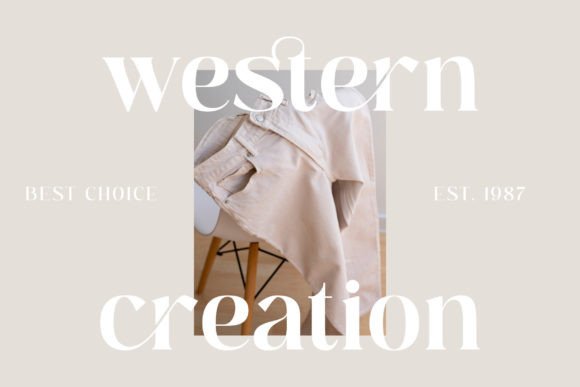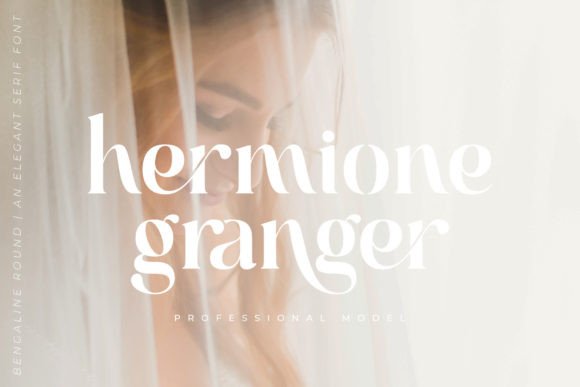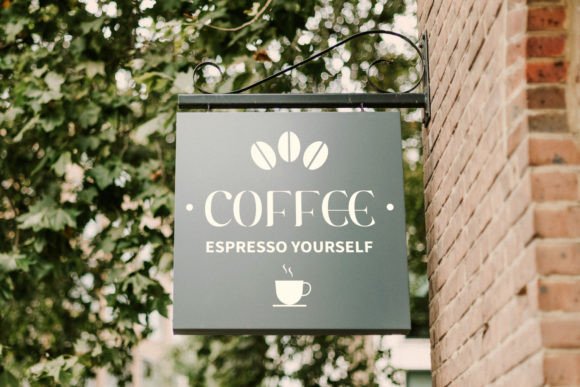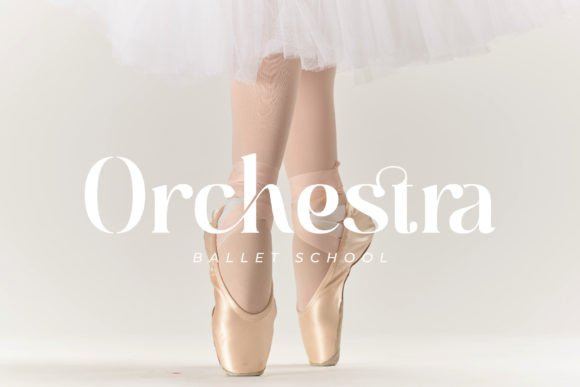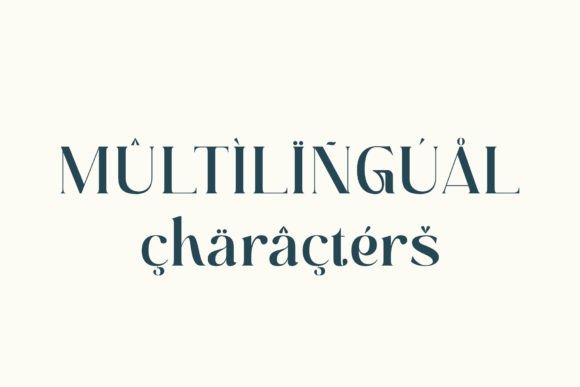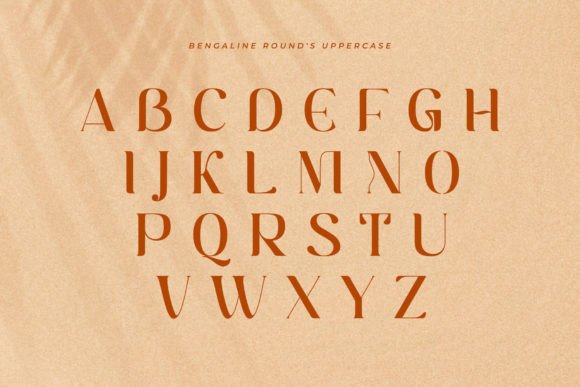
Bengaline Font: Elevate Your Designs with Elegance and Sophistication
In the world of typography, fonts play a crucial role in conveying the tone and personality of a brand or design project. Among the numerous fonts available, Bengaline stands out as a classy and elegant serif font that exudes sophistication and style. With its stylish and refined shapes, Bengaline is the perfect choice for designers and crafters looking to add a touch of luxury to their work.
Introducing Bengaline: A Font of Distinction
Bengaline is a meticulously crafted font that boasts a unique blend of classic and modern elements. Its serif design lends a sense of tradition and timelessness, while its sleek lines and refined shapes inject a dose of contemporary flair. This font is ideal for a wide range of design projects, including branding, logotypes, magazines, and websites.
Key Features of Bengaline Font
- Classy and Elegant Design: Bengaline’s serif design and refined shapes make it perfect for projects that require a touch of sophistication.
- Versatile Styles: Bengaline is available in two distinct styles—regular and rounded—offering versatility to suit different design needs.
- High-Quality Typography: Bengaline’s font files are of high quality, ensuring crisp and clear rendering at various sizes.
The Benefits of Using Bengaline Font
So, why choose Bengaline font for your design projects? Here are just a few benefits:
- Enhance Your Brand’s Image: Bengaline’s sophisticated design helps elevate your brand’s image and convey a sense of luxury and refinement.
- Stand Out from the Crowd: Bengaline’s unique blend of classic and modern elements ensures that your design stands out from the crowd.
- Flexibility and Versatility: With two distinct styles to choose from, Bengaline offers the flexibility to adapt to different design needs and projects.
Design Applications for Bengaline Font
Bengaline font is suitable for a wide range of design applications, including:
- Branding and Logotypes: Bengaline’s elegant design makes it perfect for creating sophisticated brand identities and logotypes.
- Magazines and Newspapers: Bengaline’s serif design and high-quality typography make it ideal for print publications.
- Websites and Digital Media: Bengaline’s clean lines and refined shapes ensure that it renders beautifully on digital platforms.
- Packaging and Advertising: Bengaline’s luxurious design makes it perfect for packaging and advertising materials.
| Author | Madatype Studio |
In conclusion, Bengaline font is a classy and elegant serif font that offers sophistication and style to designers and crafters. With its versatile styles, high-quality typography, and ease of use, Bengaline is perfect for a wide range of design projects. Whether you’re looking to create a luxurious brand identity, a sophisticated magazine, or a beautiful website, Bengaline font is an excellent choice.